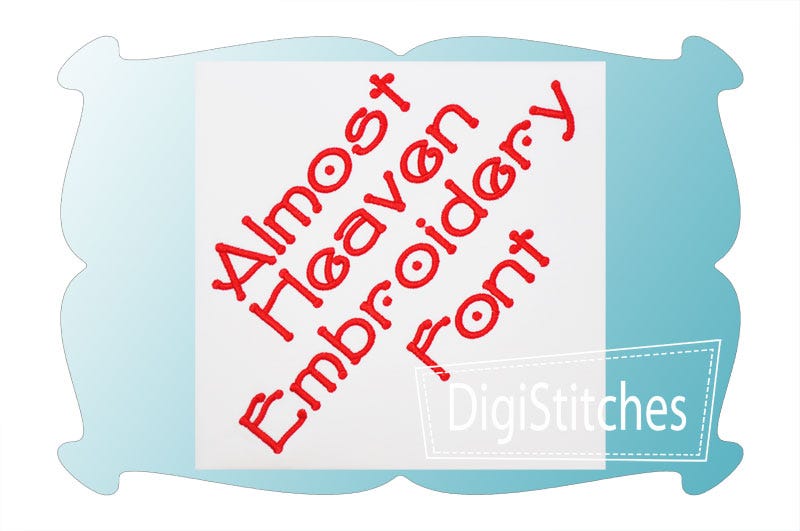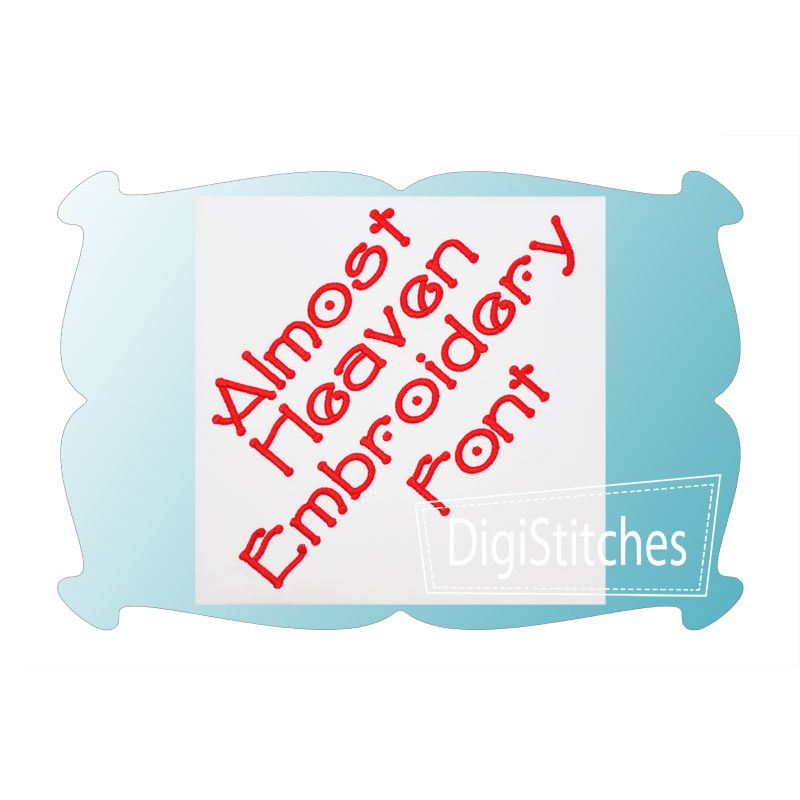
Almost Heaven Satin Stitch Embroidery Font
Almost Heaven Embroidery Font
Almost Heaven embroidery font features super bold letters that really stand out on t-shirts and projects.
A fun font with dots sure ups the cuteness factor.
Almost Heaven Embroidery Font comes in 5 sizes: .75, 1.00, 1.25, 1.50 and 2.00 inches. Size refers to the height of the letters in the set.
Upper case letters A thru Z, lower case letters a thru z, numbers 0-9, punctuation as shown.